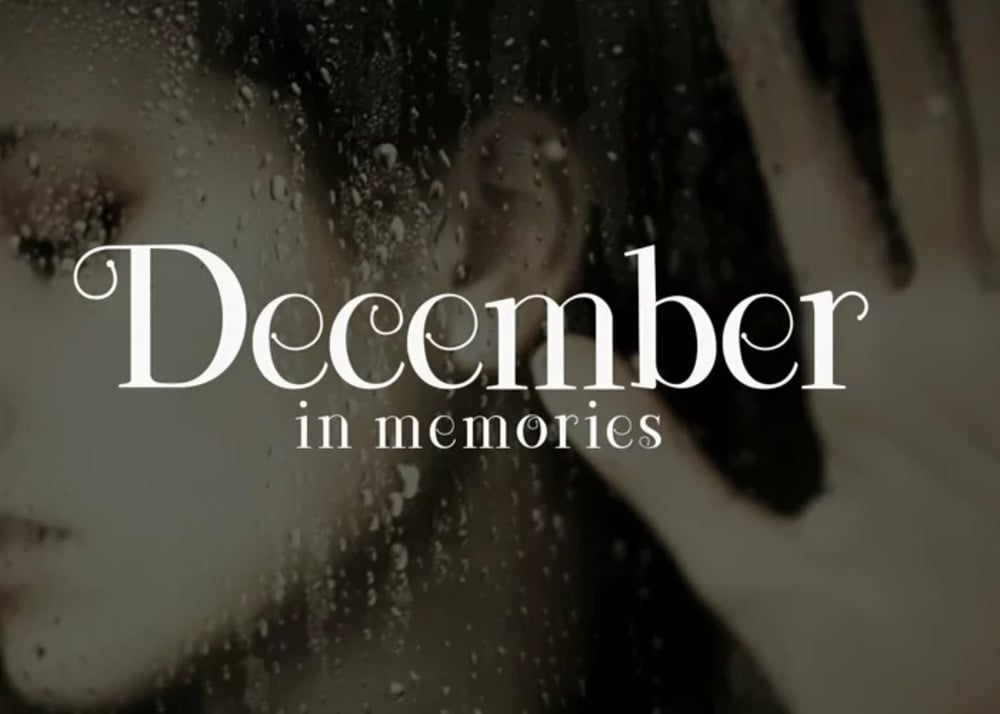
Lefina Font
Lefina is a graceful serif typeface with a modern, feminine touch. Its high contrast strokes and delicate curves create an elegant, sophisticated aesthetic, perfect for luxury branding, editorial design, and invitations. The font blends classic refinement with contemporary style, offering readability and charm. Lefina’s timeless beauty enhances any project, making it a favorite for high-end designs.